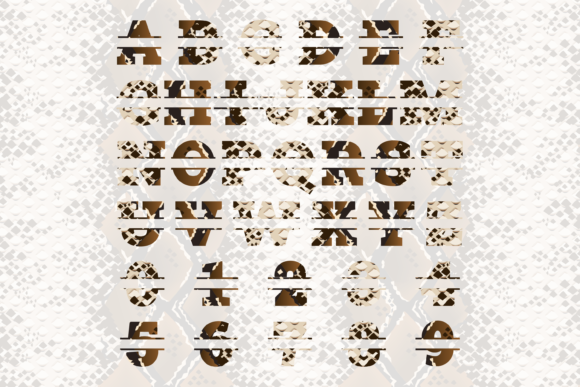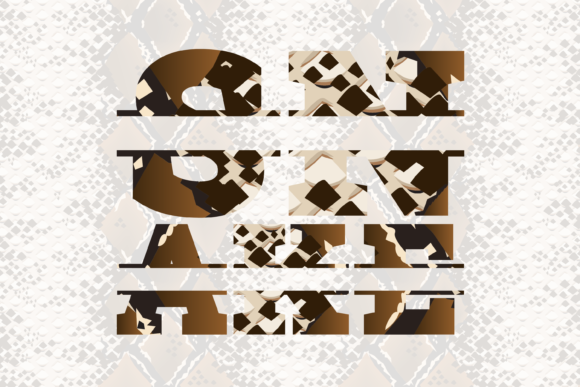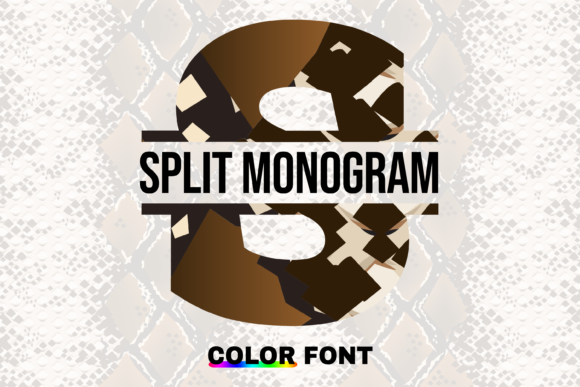
Introduction to Snake Split Font
Snake Split is an incredibly cool font containing cute snake elements.
Whether you use it for custom designs, DIY crafts, or just any creation that requires a lovely touch, this font will be an amazing choice Note.
Snake Split Font offers exceptional quality and versatility, making it a valuable addition to your design toolkit. Whether you’re creating for personal projects or commercial use, Snake Split Font delivers professional results.